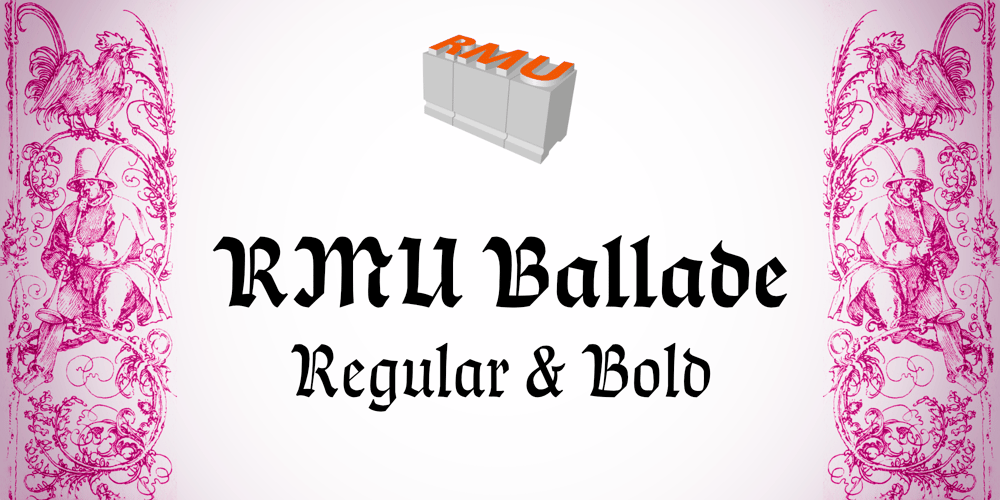
RMU Ballade
RMU Ballade font
RMU Ballade Font Family was designed by Paul Renner, Ralph M. Unger and published by RMU. RMU Ballade contains 2 styles and family package options. In the years 1937 and 1938 Paul Renner drew these both styles of the Ballade font family. Now freshly redesigned and extented for contemporary use, both styles have reappeared.These fonts contain the historical long s, which can be reached by typing the integral sign [ ∫ ] or by turning the round s into the long s via using the OT feature historical forms. It is also recommended to activate the OT feature discretionary ligatures.